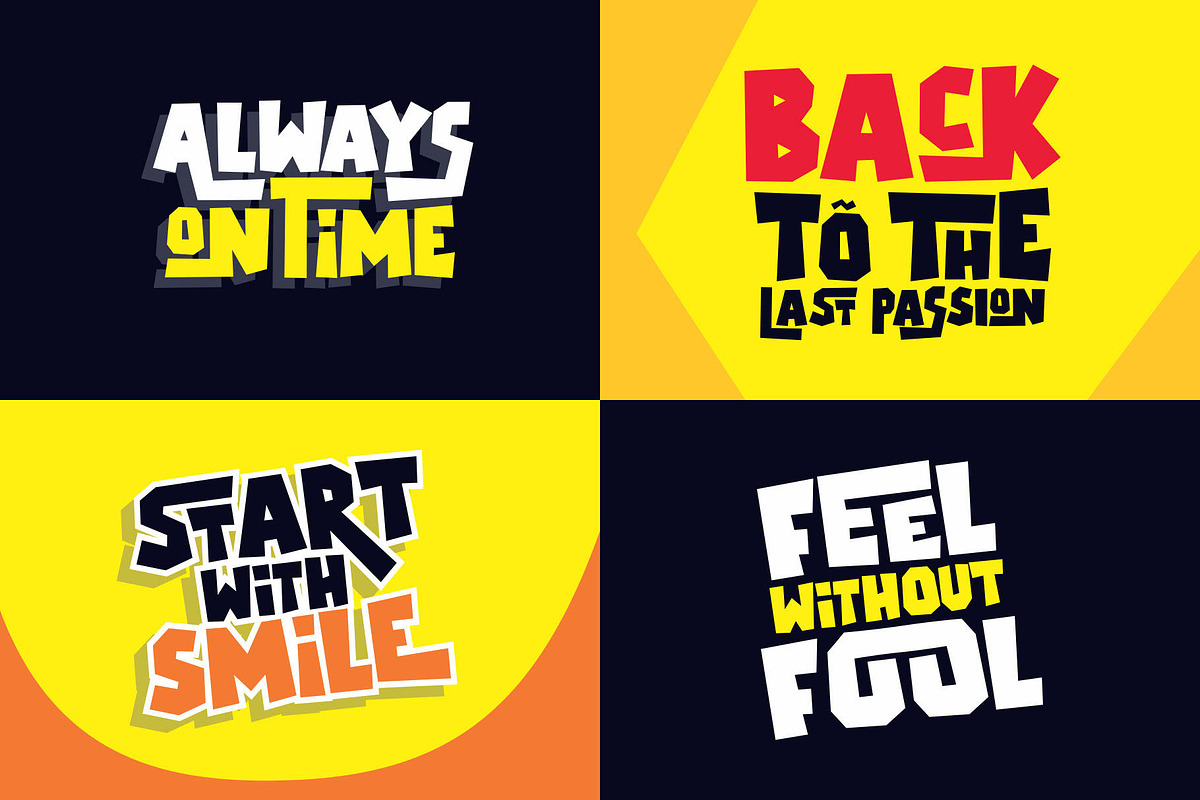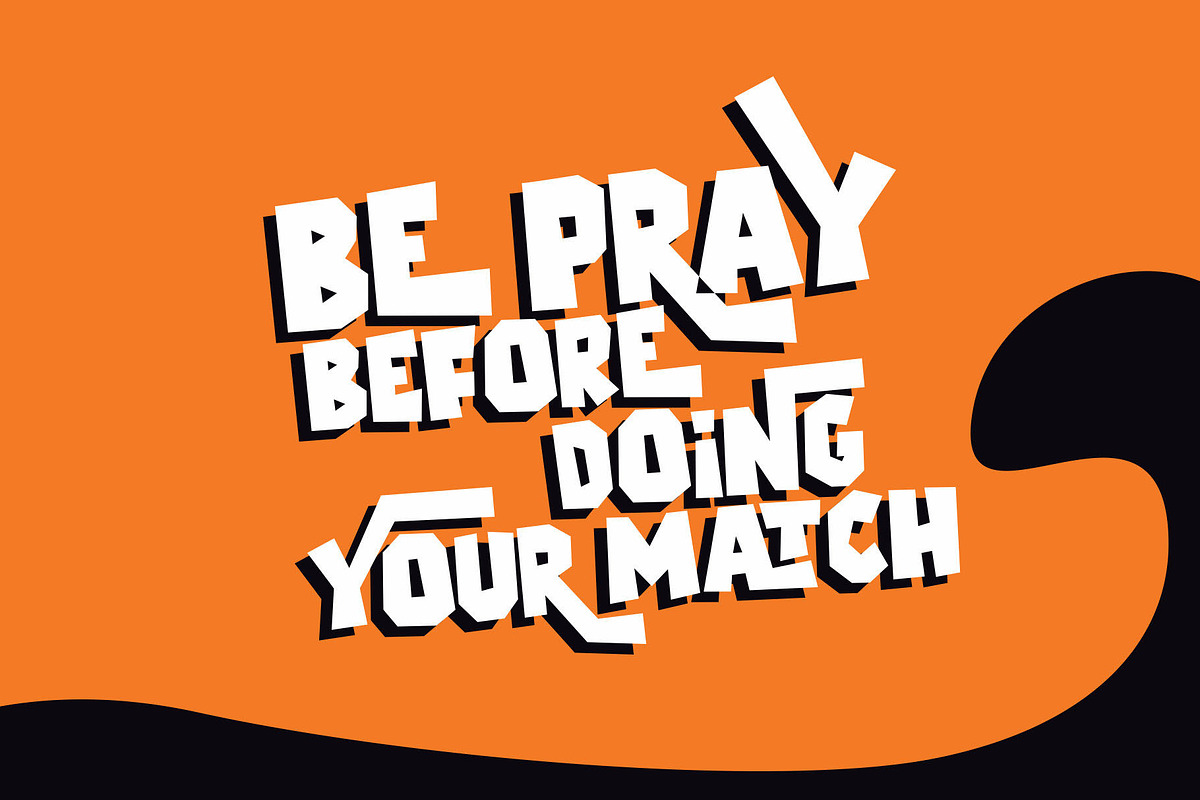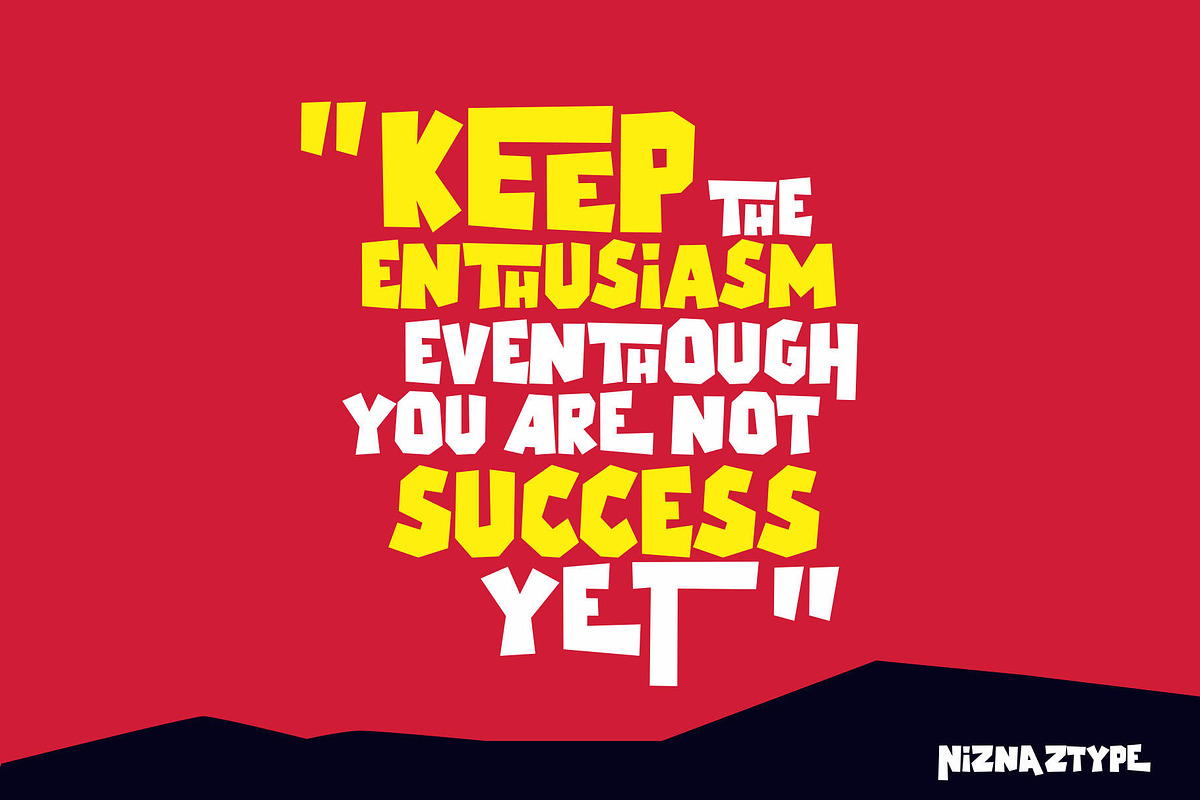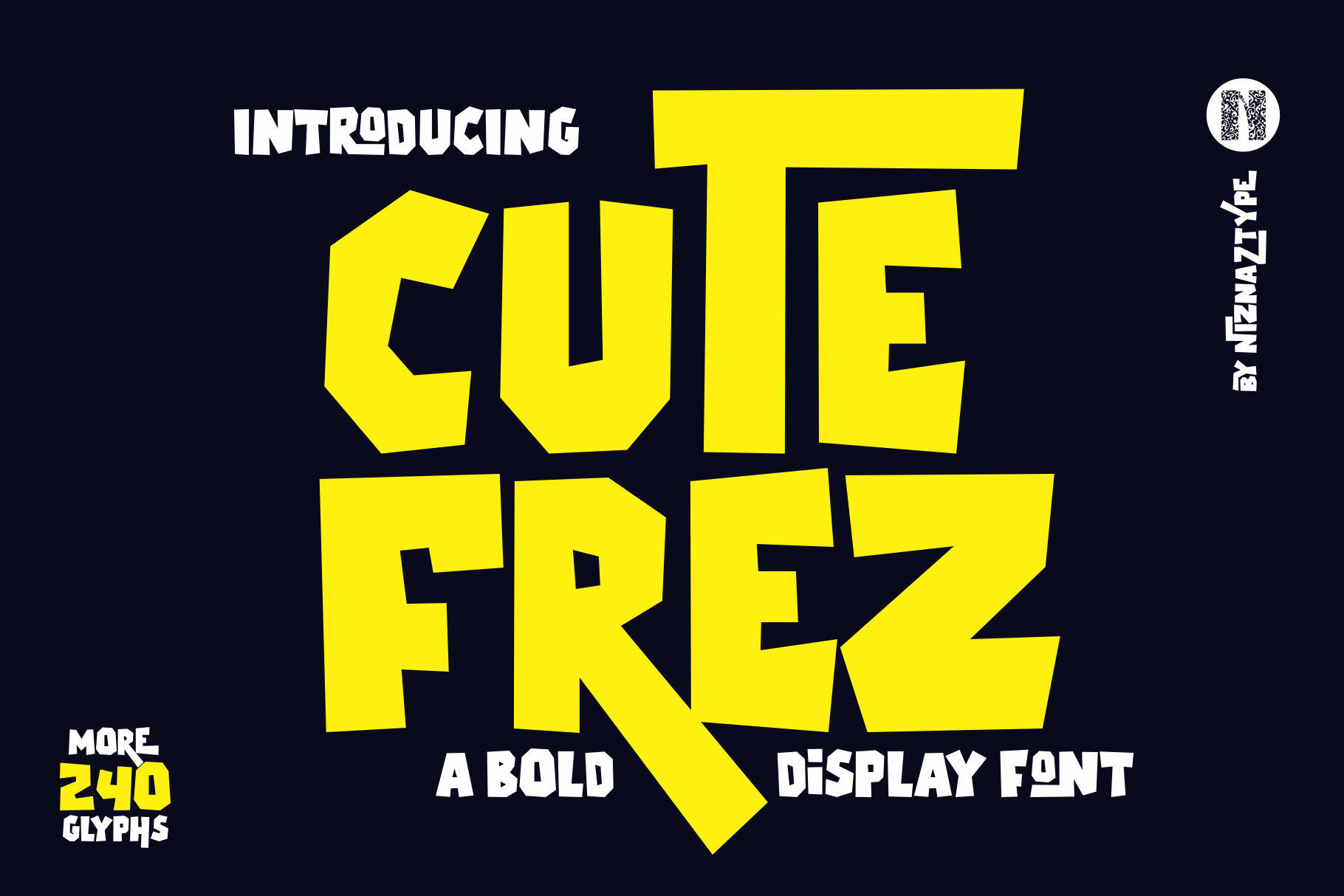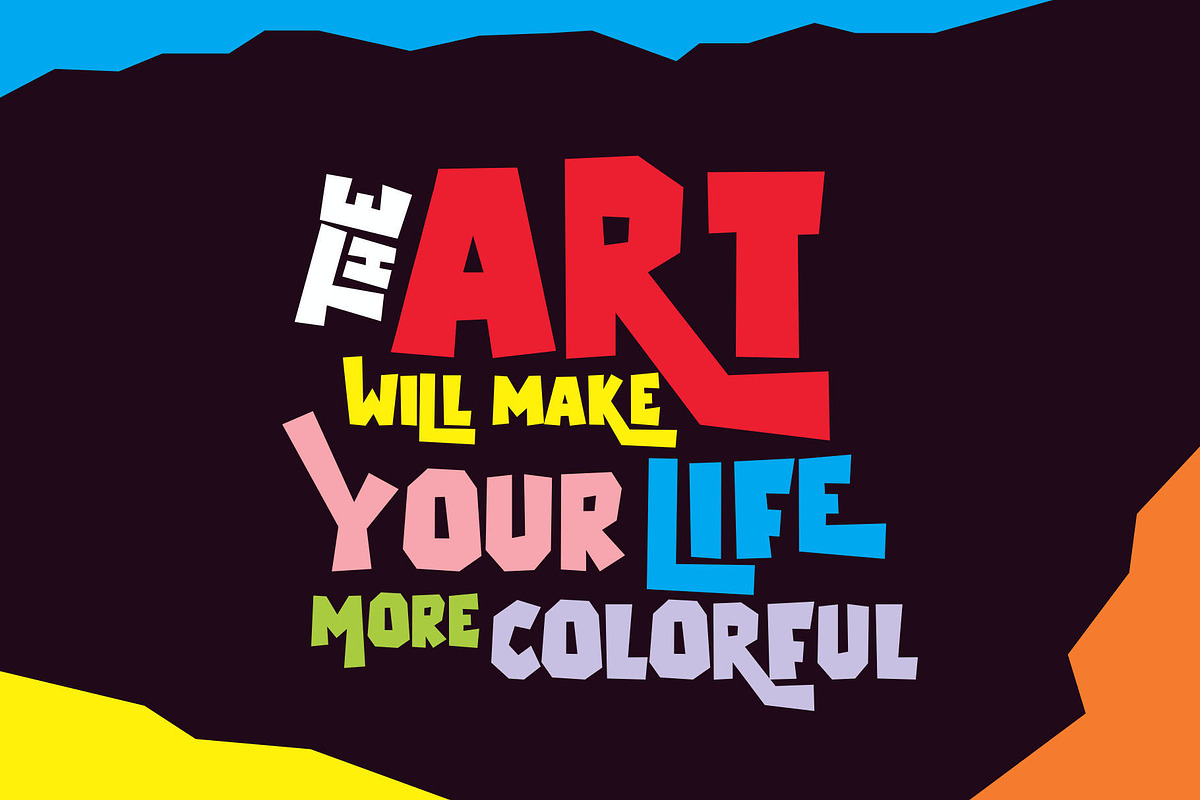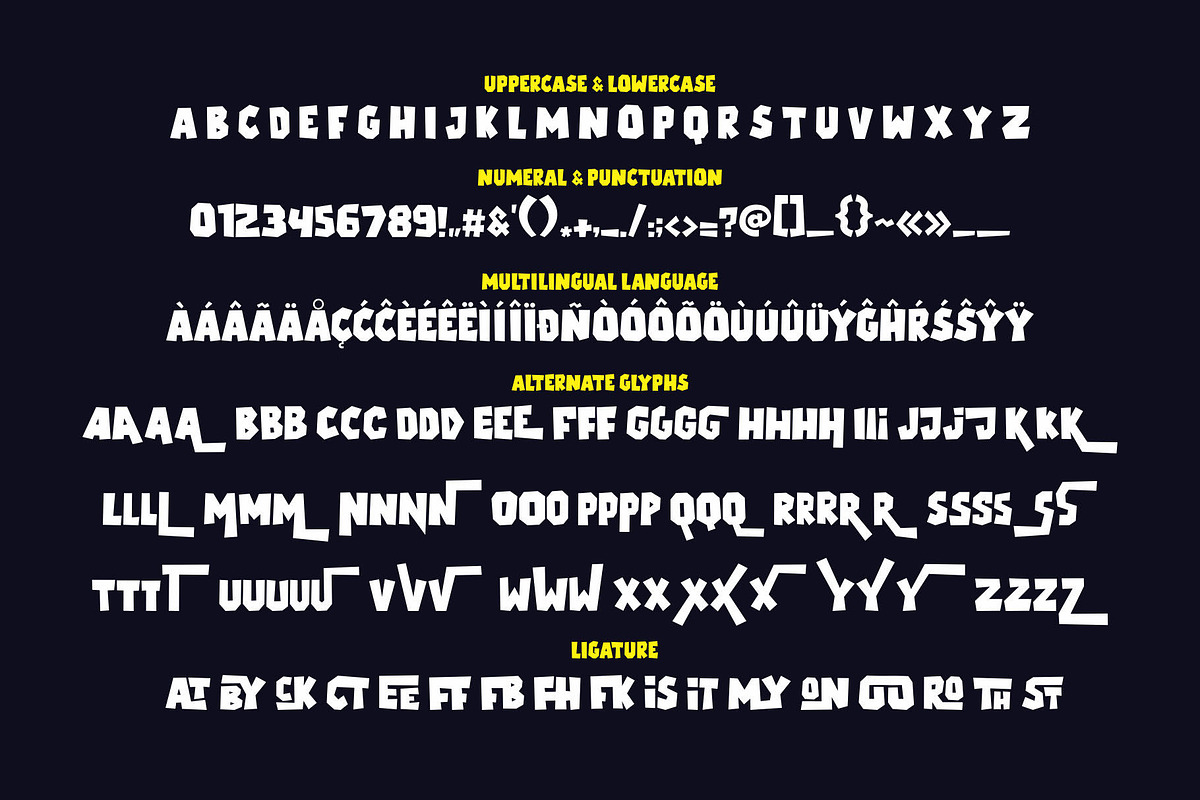
Cutefrez - A Display Cute Font
Introducing a bold display typeface. I call it as Cutefrez. Cutefrez have an unique shape style. Straight lines and boxes shape. The themes like kids, funny, simple and cute, very suitable to use this font. Cutefrez with unique style in each it glyphs will give more different colour in your design. Able to use it in designs like cover, tittle, book, kids concept, poster, headline, walpaper, mural pinting and others. Cutefrez consist of uppercase, lowercase, numeral, punctuation, alternate glyph, multilingual language and ligature. Now, please be happy with new font product. Send me email in emnazar@gmail.com if you have any question.